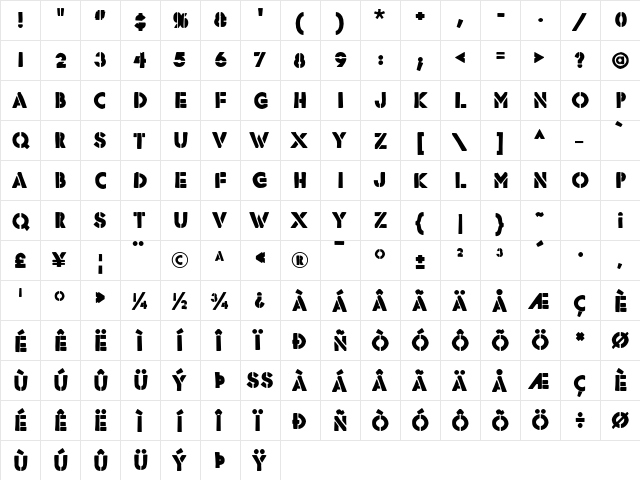
Rafika Regular
Design Context for Rafika Typeface
Rafika is a composed and adaptable typeface that performs quietly and consistently across a wide range of design contexts.